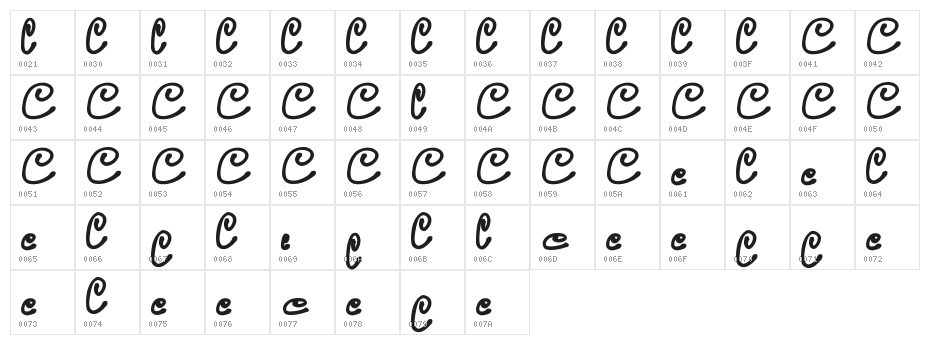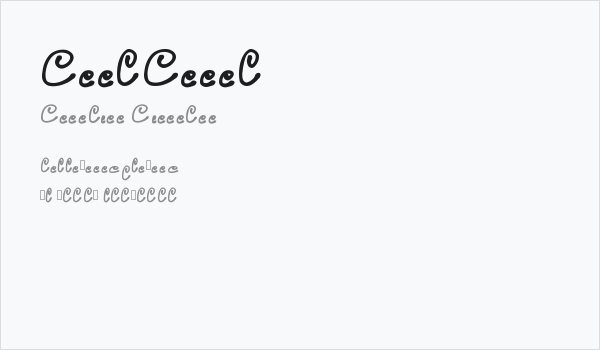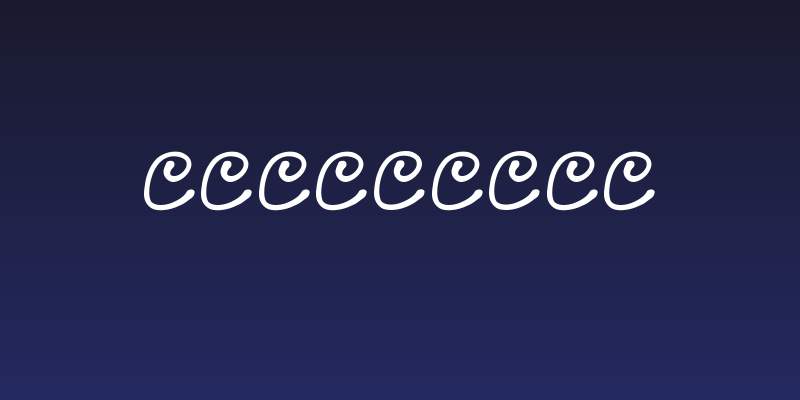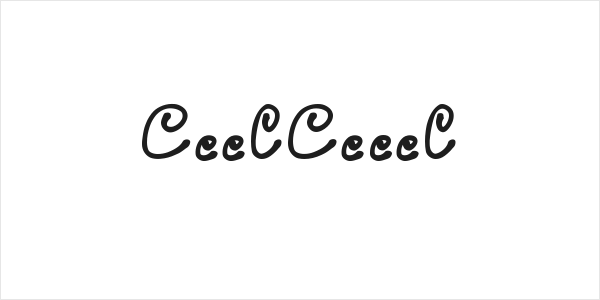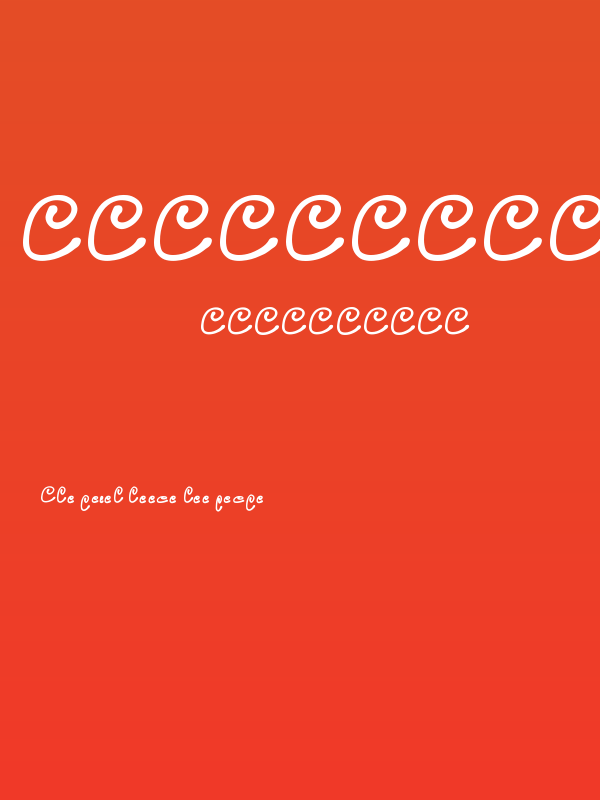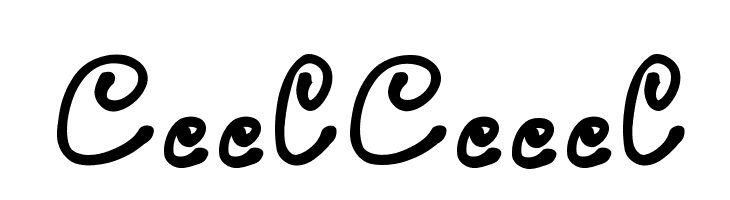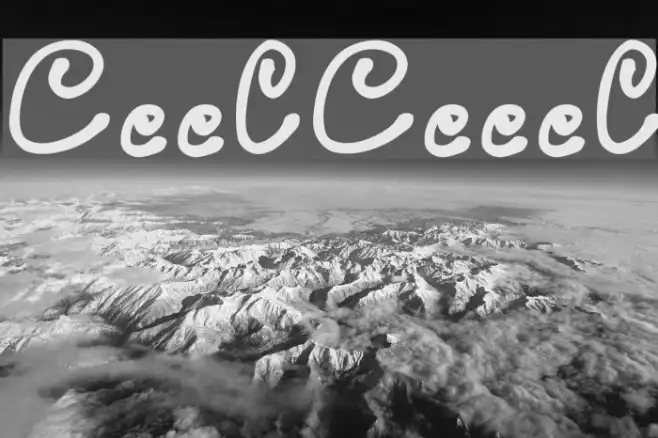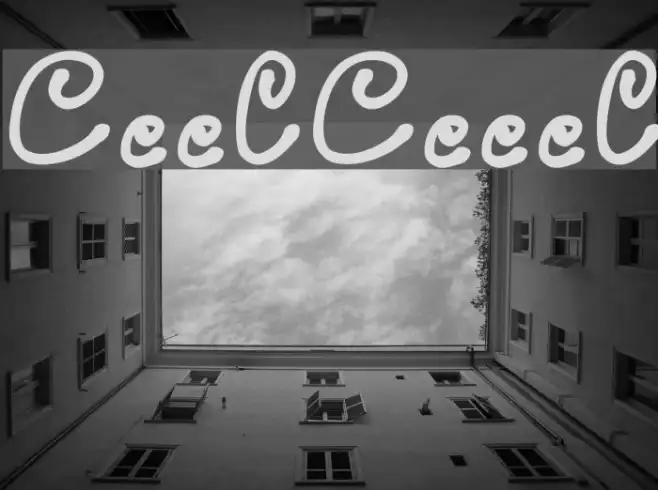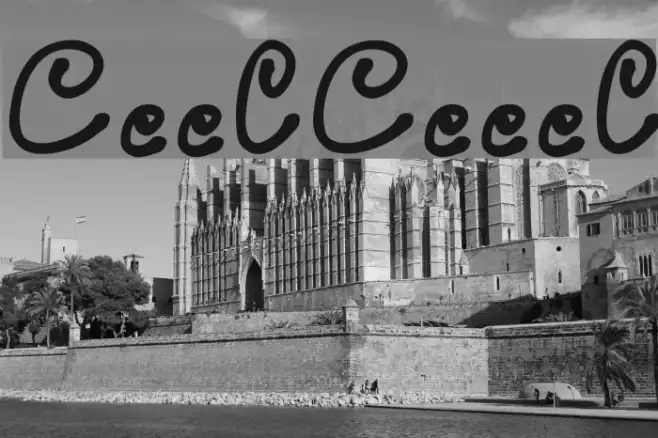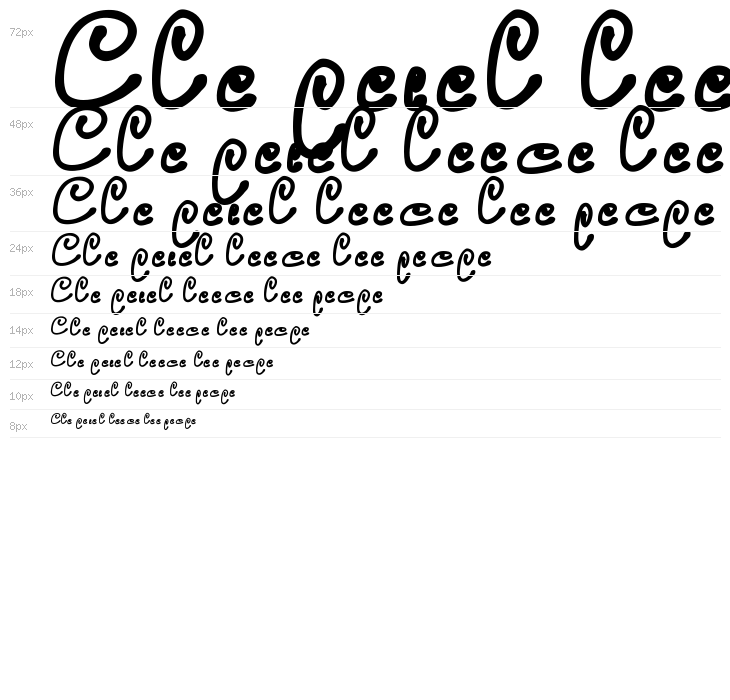
NextRound Font
NextRound Description
This font is a playful and dynamic script style characterized by its bold and flowing strokes. Each character is crafted with a sense of movement, giving it a lively and energetic appearance. The letters are interconnected, creating a seamless and fluid look that is both elegant and casual. The font's thick lines and rounded edges contribute to its friendly and approachable feel, making it suitable for a variety of creative projects. Its unique style is perfect for adding a personal touch to designs, whether for branding, invitations, or artistic endeavors.
| Use Case | Logos, Invitations, Artistic projects |
| Proposed Projects | Ideal for branding, invitations, artistic projects, and any design requiring a personal touch. |